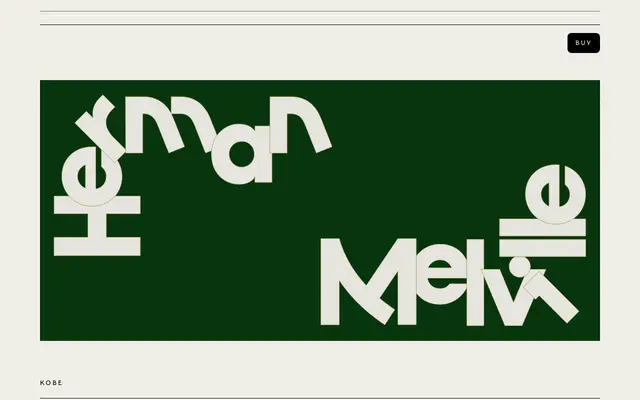
Kobe
VJ Type · Jérémy Schneider · 2018
Kobe specimen from VJ Type
A modular geometric sans originally released as a single weight in 2018, expanded in 2021 to six weights with obliques and a rich set of alternates drawing on Japanese letterform shapes.
Built on a clean modular structure, Kobe balances functional proportions for text with playful terminals and an unusually steep oblique slant that reads distinctly at display sizes. An extensive set of ligatures and stylistic alternates for both upper and lowercase take visual cues from Japanese writing, giving the typeface a character uncommon in Western geometric sans designs. The 2021 update refined the Regular and introduced Bold and Black weights, each with a matching oblique, broadening the family's range from body copy to headline use.
Kobe is built on a modular geometric structure with playful terminals and an exaggerated oblique slant, placing it firmly in the geometric sans-serif tradition with a display-leaning personality.